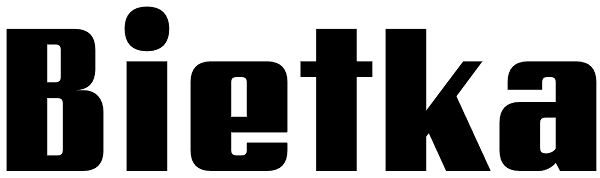
Bietka
Bietka is a high quality squarish display font - geometric, modernist and playful at the same time. It supports multiple languages, as well as open type features, alternate styles, lining, old style, proportional and tabular figures, fractions...
Bietka Font
Bietka Italic